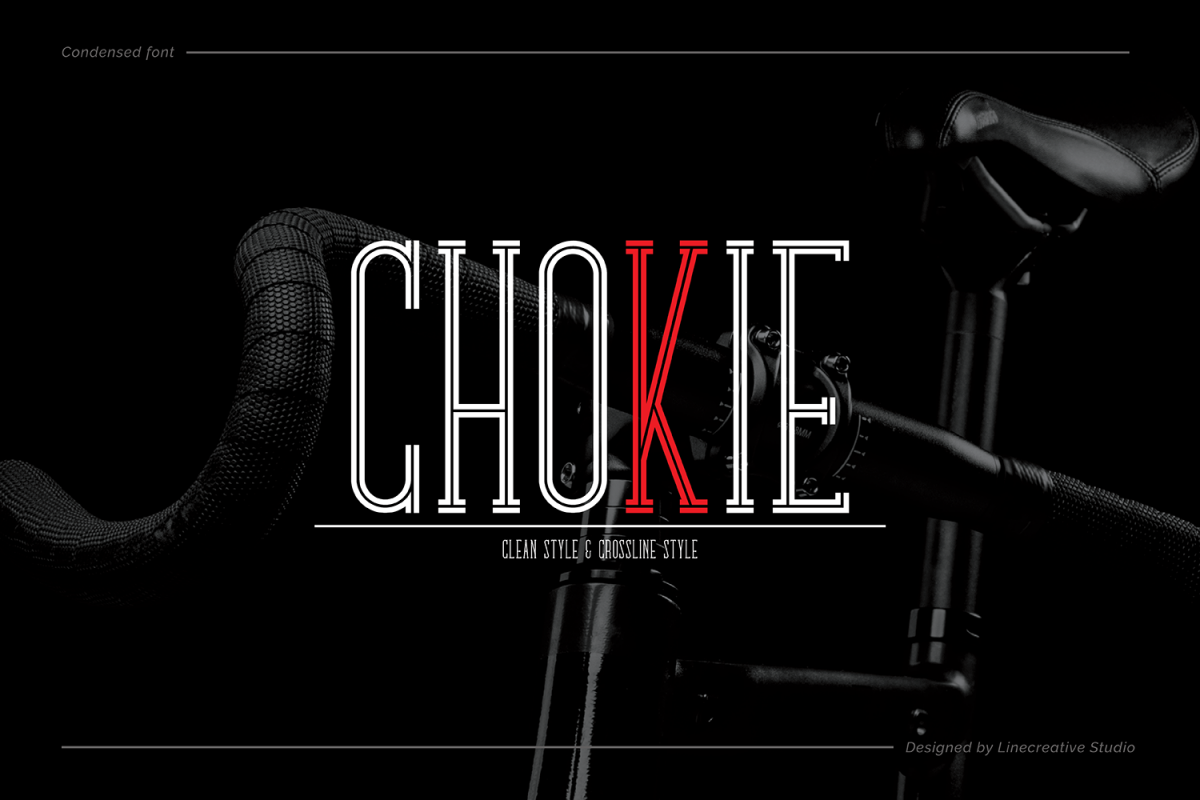
Chokie is a serif font with a simple and classy style,This
Font would be perfecly used as the headline, editorial design, print posters,
signage, window shop design, and much more.chokies has 2 variants namely: clean
style dan crossline style.You can mix and match the Crossline style and the
clean style to create something very fresh and modern